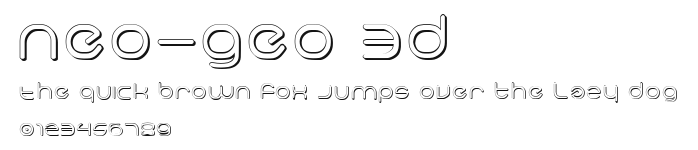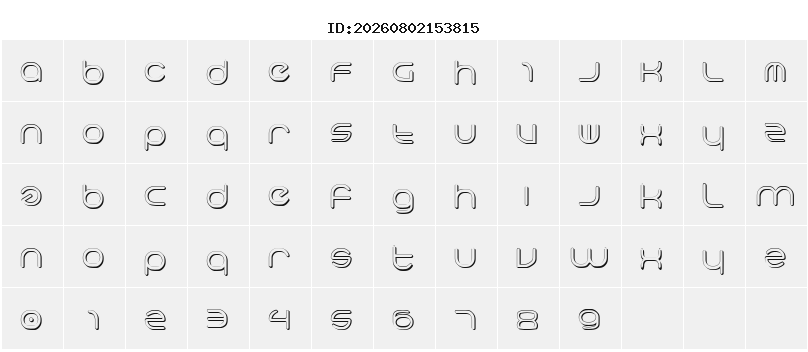
• Font Name: neo-geo 3D
• Font Style: 3D
• Full Font Name: neo-geo 3D
About neo-geo 3D.ttf
neo-geo 3D.ttf is a modern, elegant sans-serif font designed for ultimate readability and visual harmony. Perfect for branding, headlines, web design, and print materials.